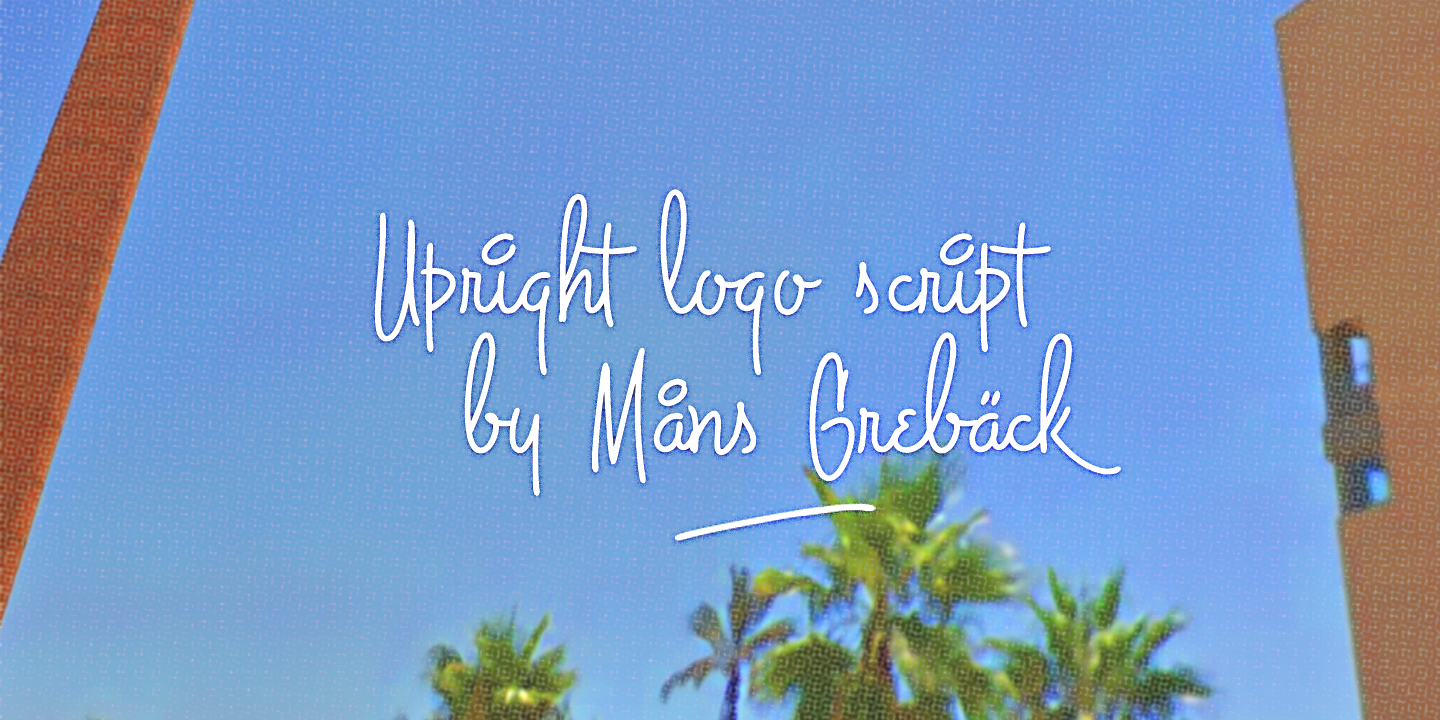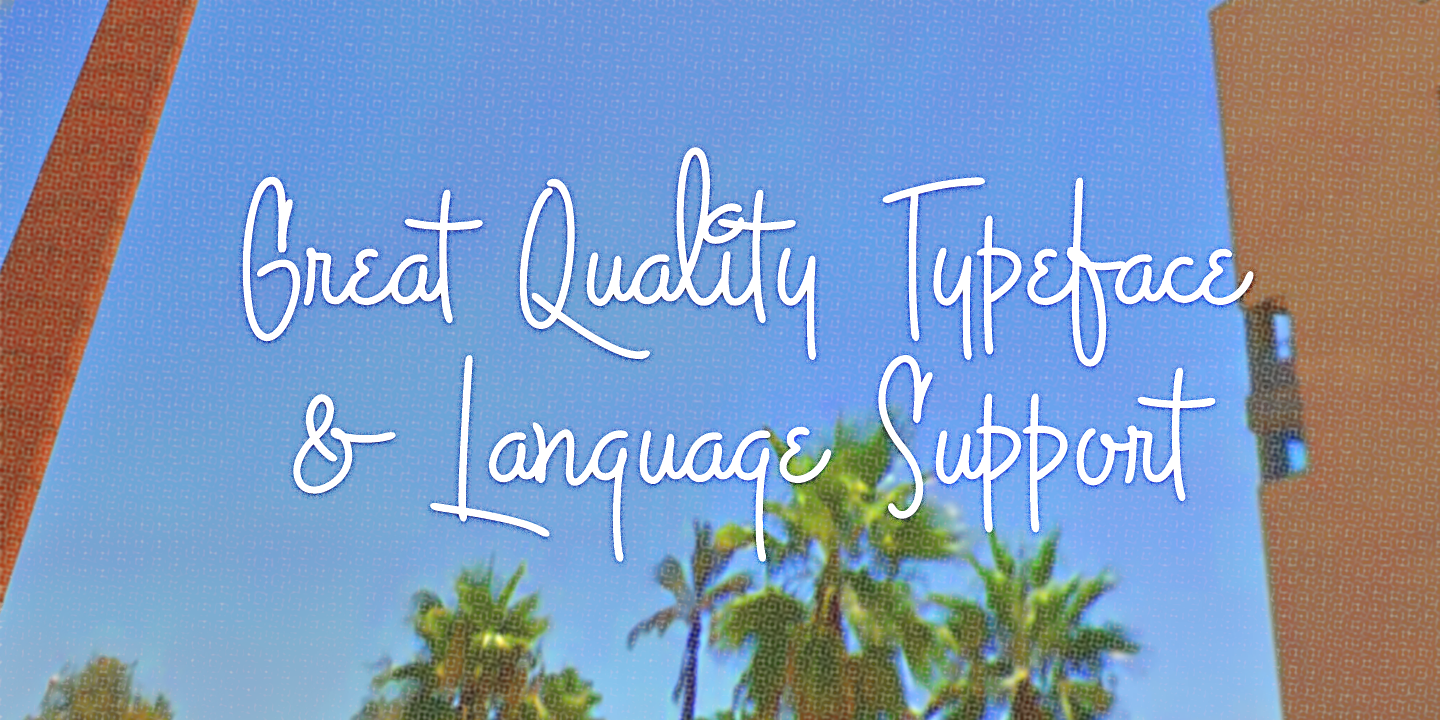
The Hills
The Hills is a script typeface, perfect for logotypes.
Designed by Måns Grebäck during 2017, this high quality lettering brings you to the sunny fifties.
It is well balanced and has a nice medium weight.
The font contains 350 glyphs and has support for a wide range of languages.